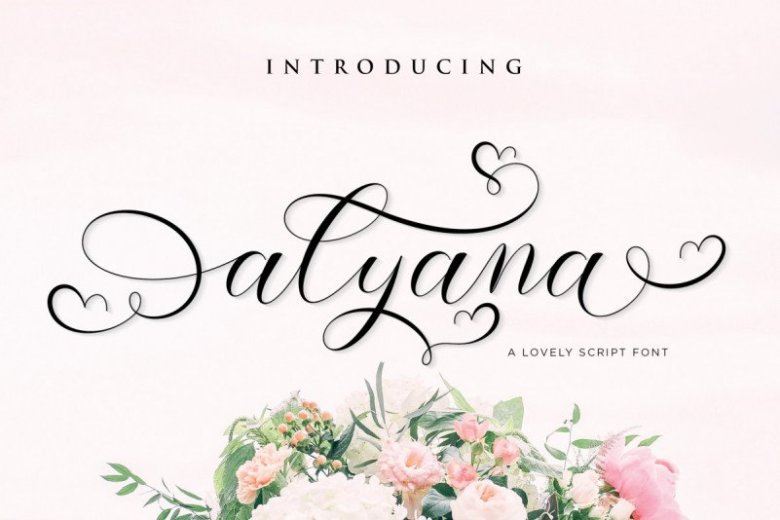
Alyana Script Font
A sweet calligraphy font by fanastudio. This is a stylish calligraphy font with an amazing and natural style. I think the calligraphy have an advantage for the alternate characters, It has a Tons of style for explore in just one letter! Introducing Alyana Font. It’s a stylish script font. It has a modern and classy look which can be used to add an amazing personal touch to your designs. It can be used for logos, branding, invitations, stationary, wedding designs, social media, advertisements, labels, watermarks, and much more!